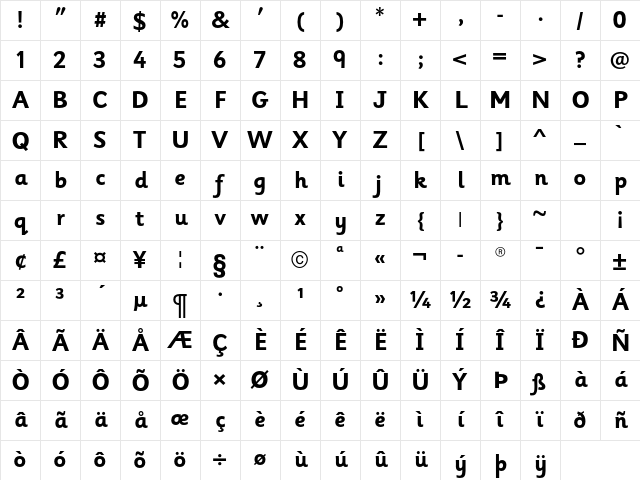
Complete Sassoon Infant Std Bold glyph index. Displaying only characters natively supported by Sassoon Infant Std Bold font.
Sassoon Infant Std is a composed and adaptable typeface that performs quietly and consistently across a wide range of design contexts. Its bold stroke weight gives it real presence on the page.